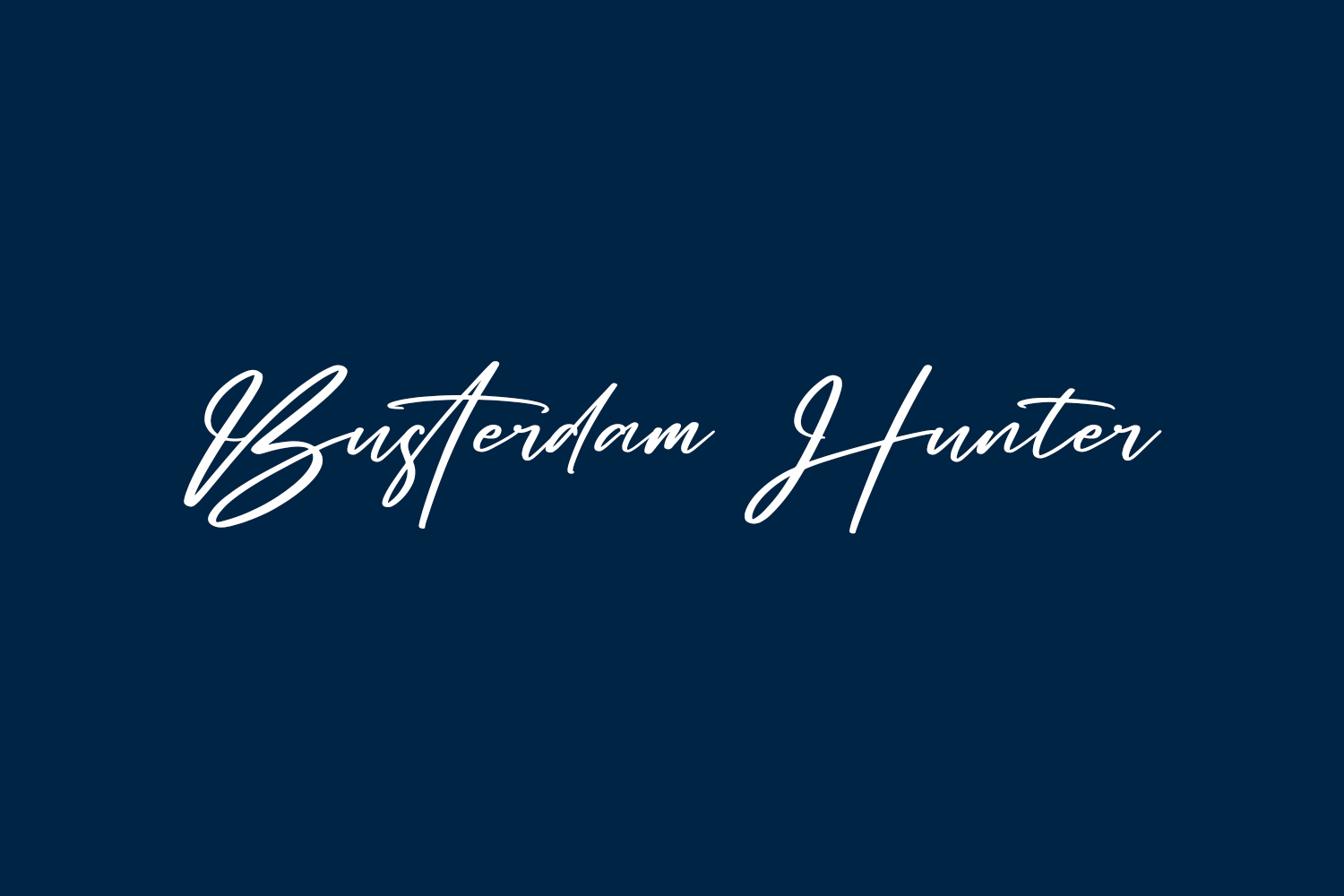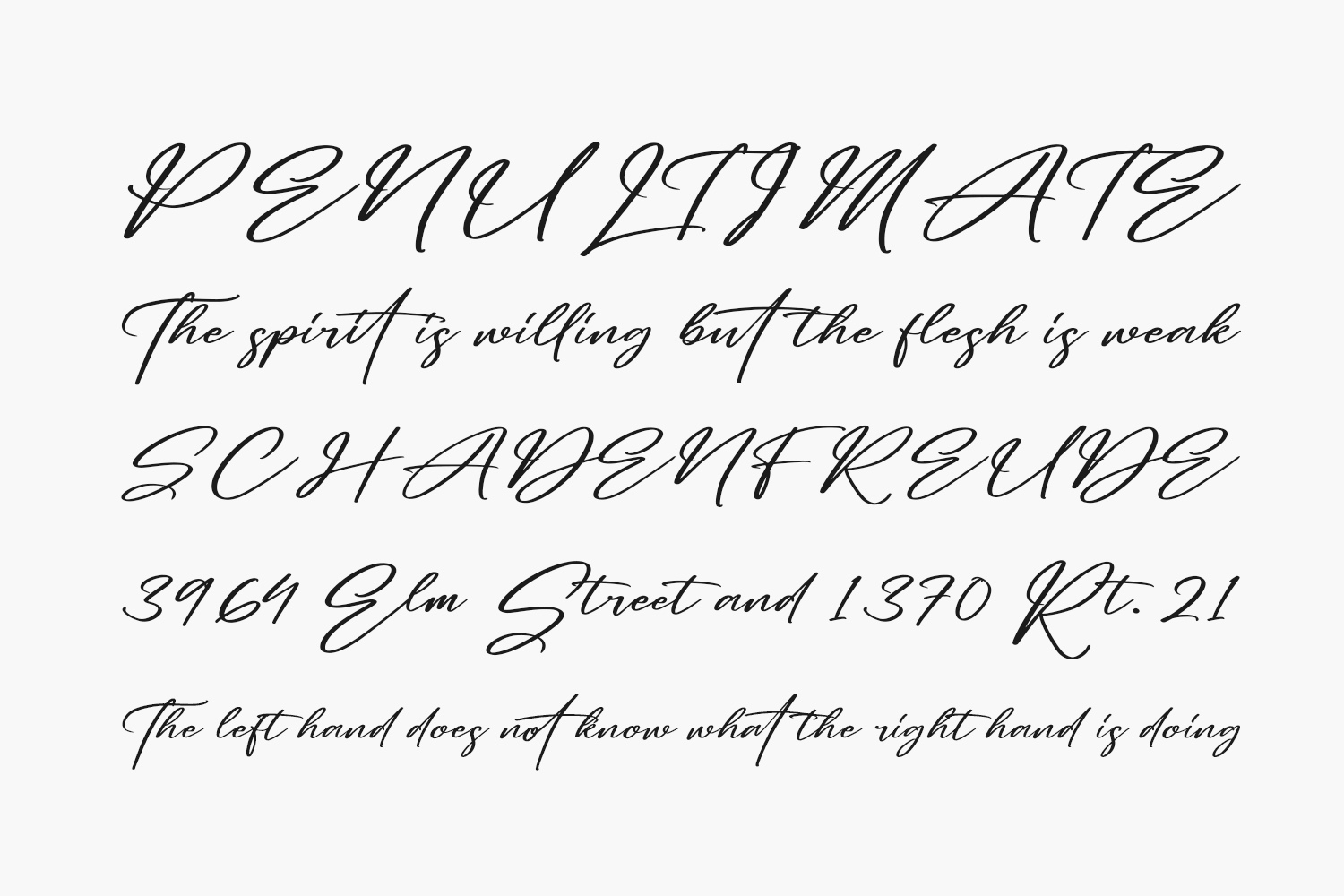
Busterdam Hunter is a beautiful and light handwritten typeface. It captures the essence of captivating charm and emotional whimsy. Its unique and playful lettering adds a touch of personality to any design, while its emotional depth gives your words a charming and endearing impact. This font is perfect for creating designs. It evokes feelings of joy, wonder, and imagination. Whether you’re crafting a whimsical message, designing a playful invitation, or simply adding a touch of magic to your work, the font brings your designs to life with its emotional charm and beautiful, lighthearted spirit.